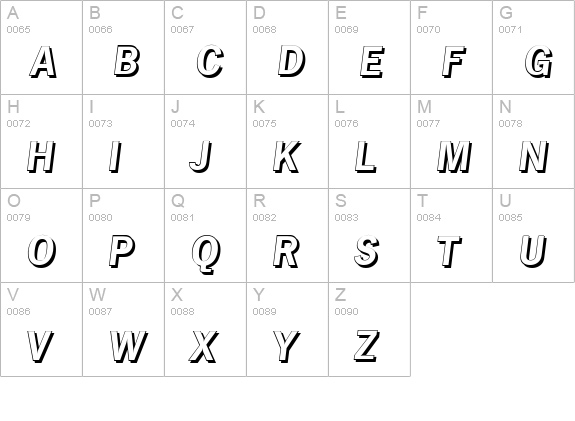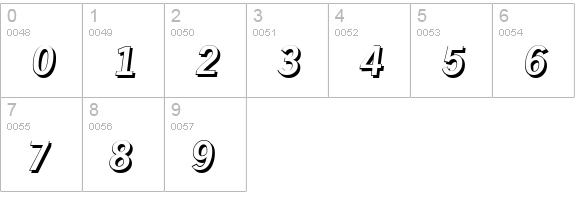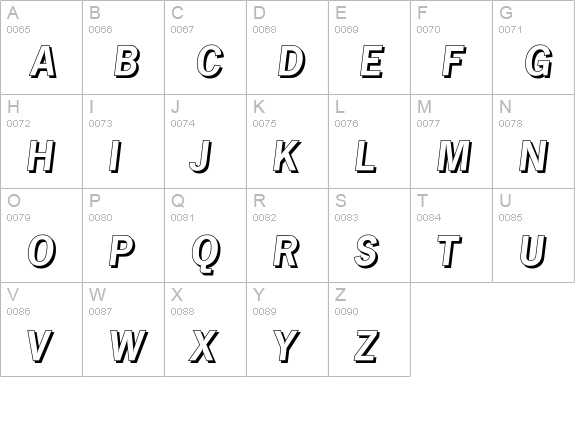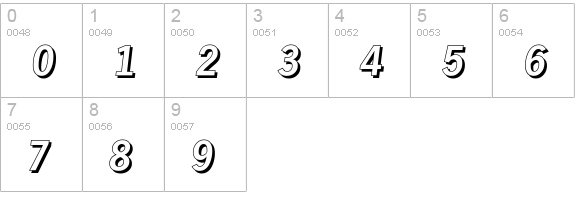
HamburgShadow-BoldItalic is a striking and dynamic font that exudes a sense of boldness and sophistication. Its sleek and modern design makes it perfect for a variety of creative projects, from branding to advertising and beyond. The italicized version adds a touch of flair and elegance to any text, making it stand out with a touch of drama. And the best part? HamburgShadow-BoldItalic is available for free download at FontsMarket.com. This means you can elevate your designs without having to spend a dime. Don't miss out on this opportunity to add a touch of class to your projects with this stylish and versatile font. Download HamburgShadow-BoldItalic today and take your design game to the next level.